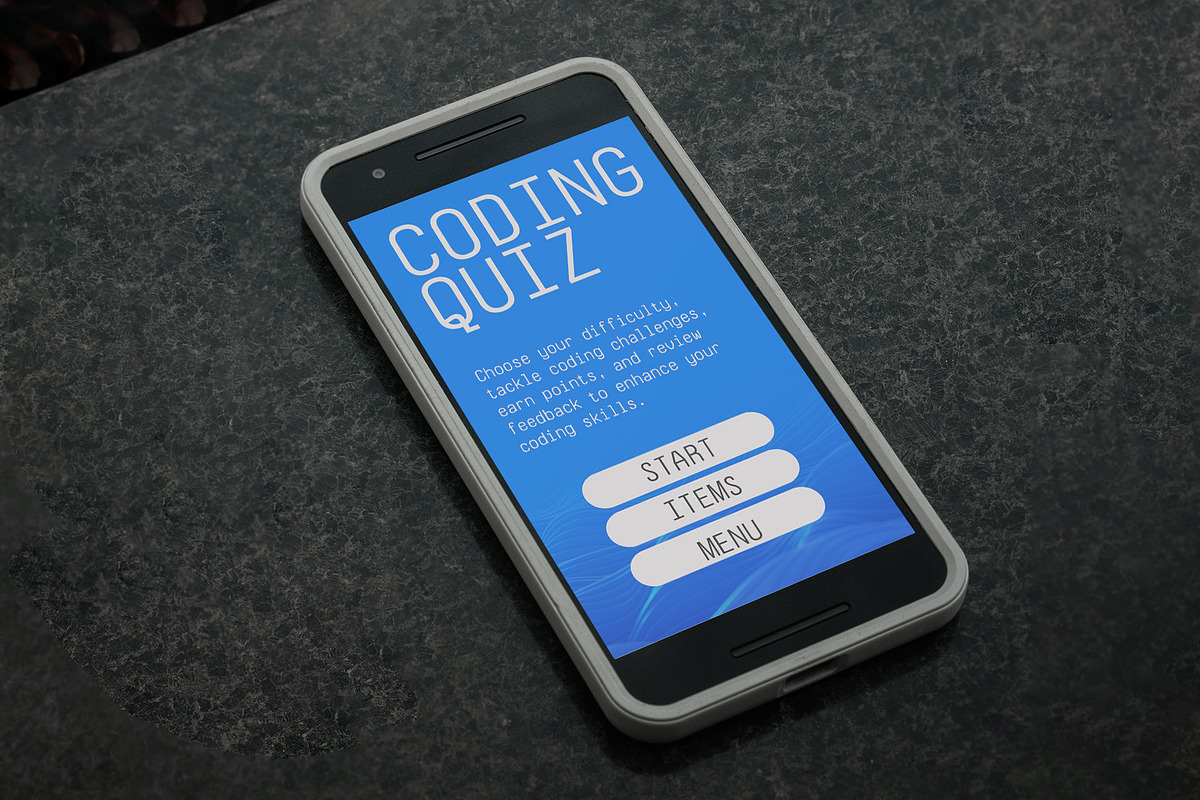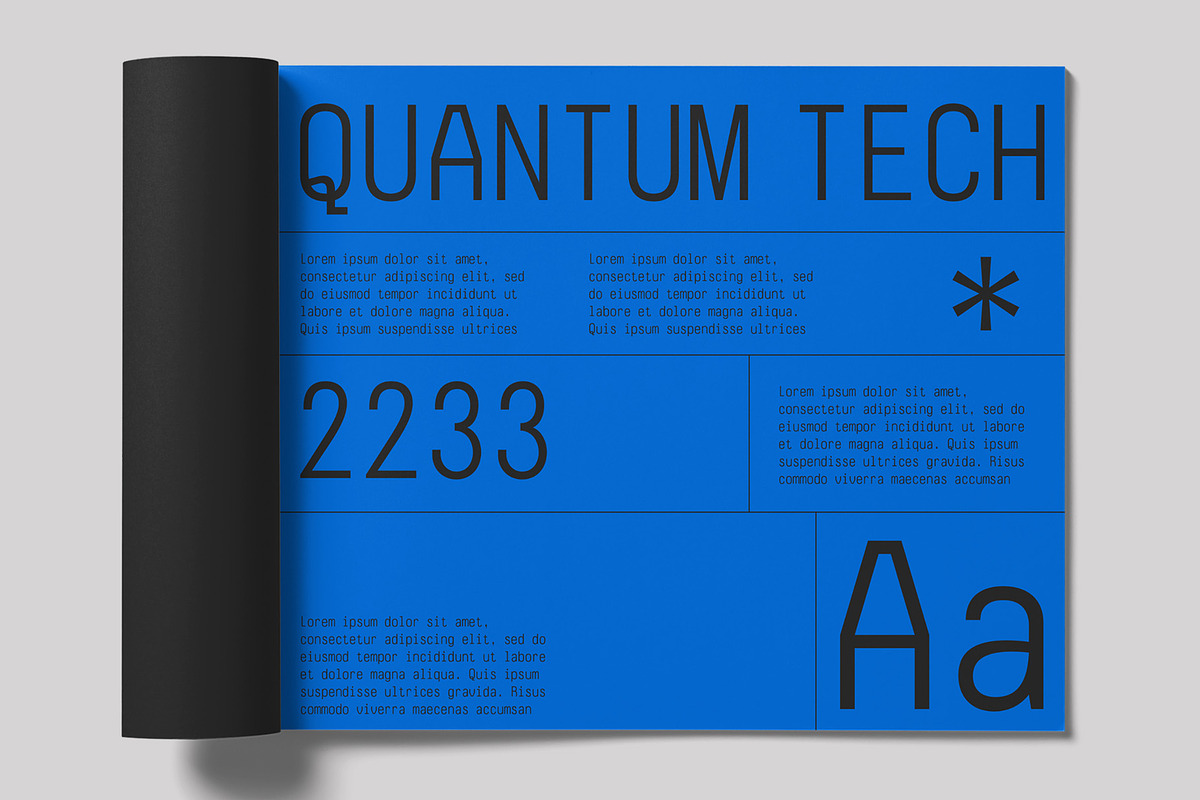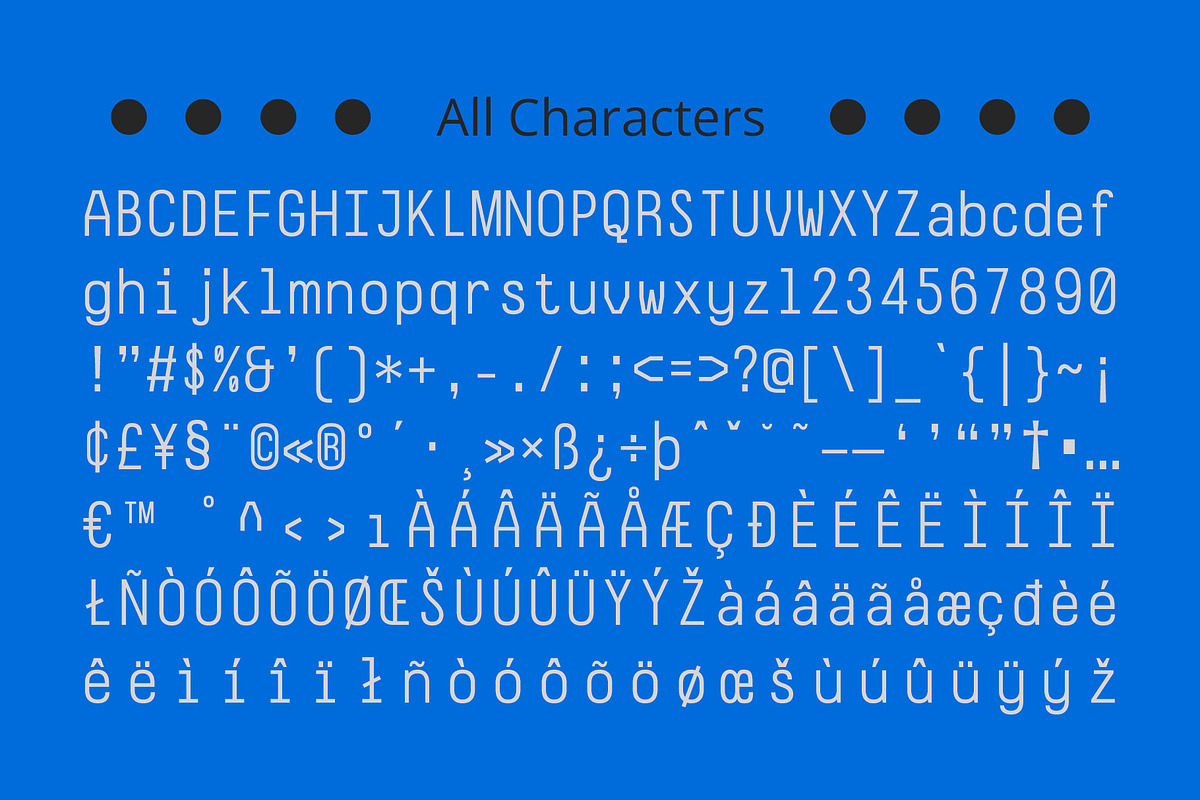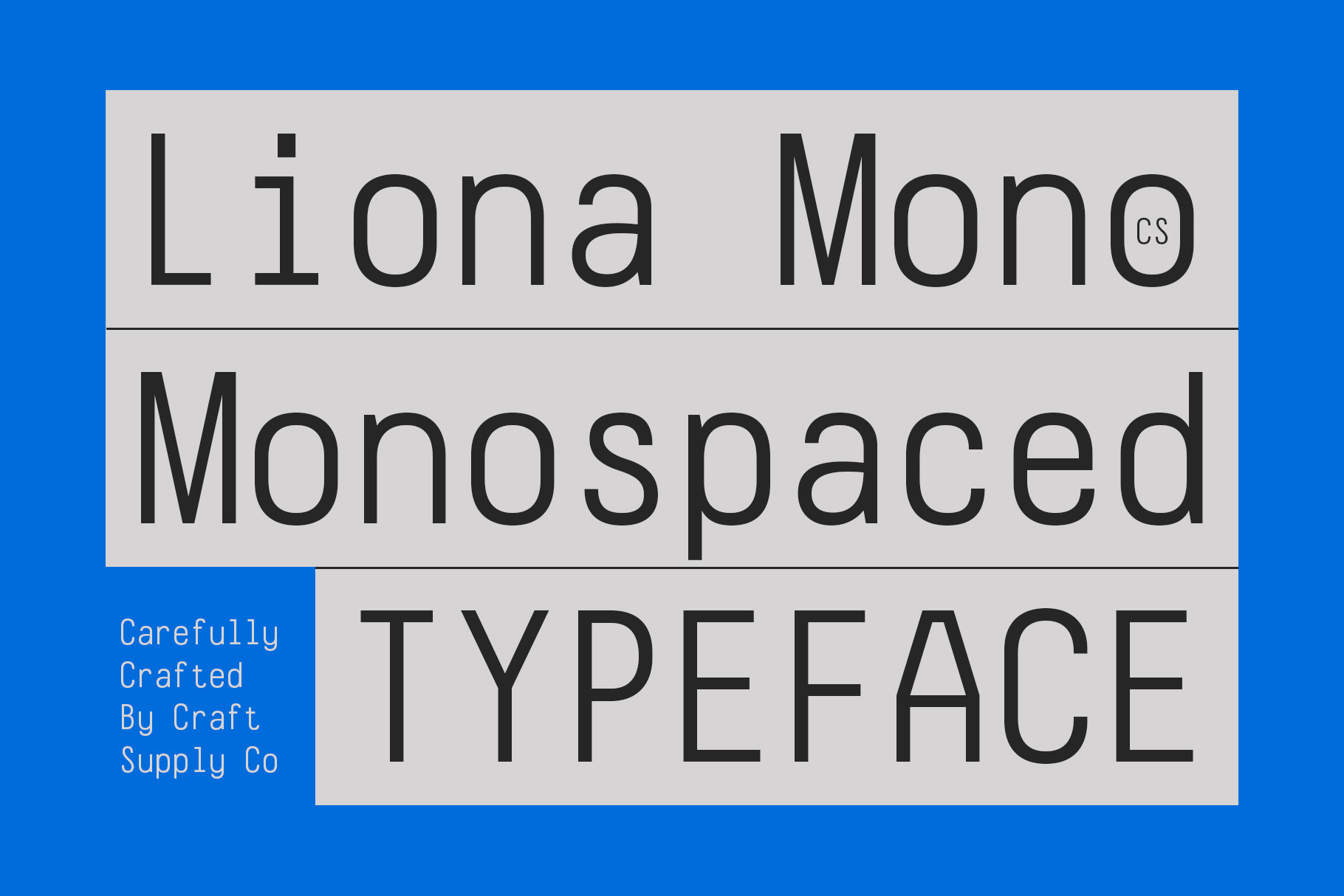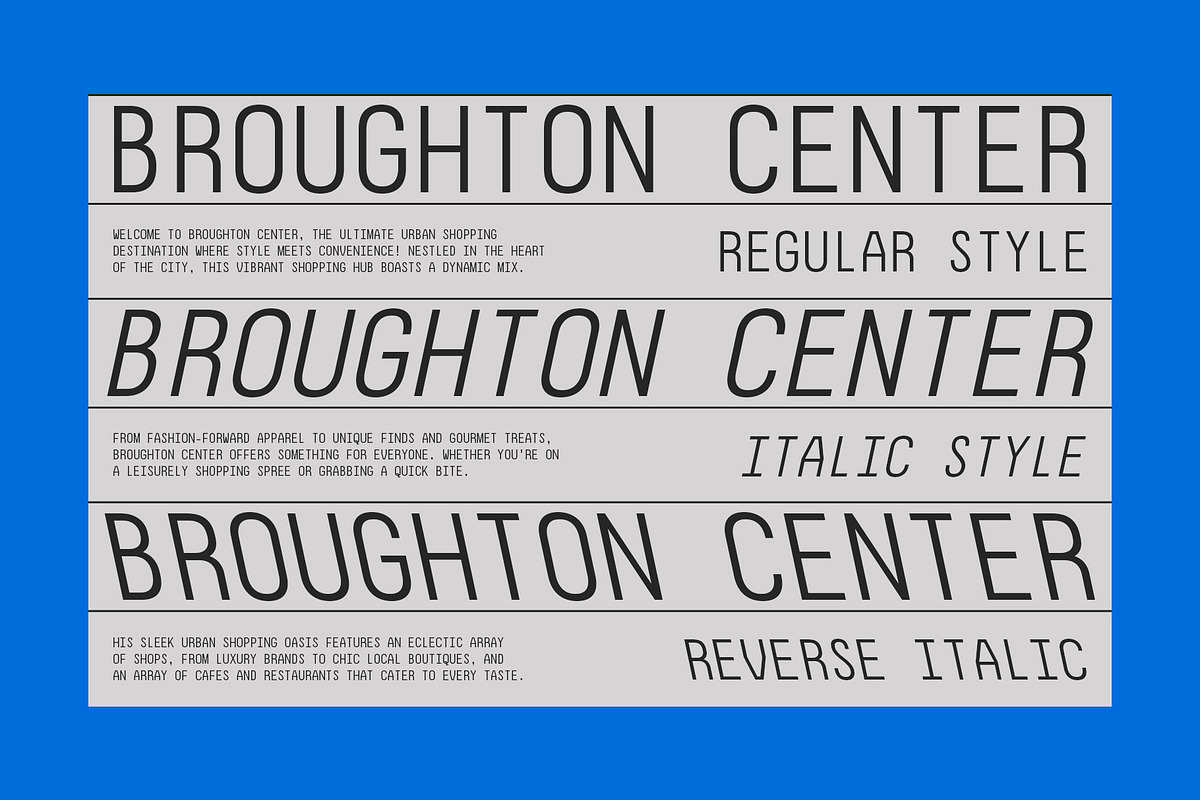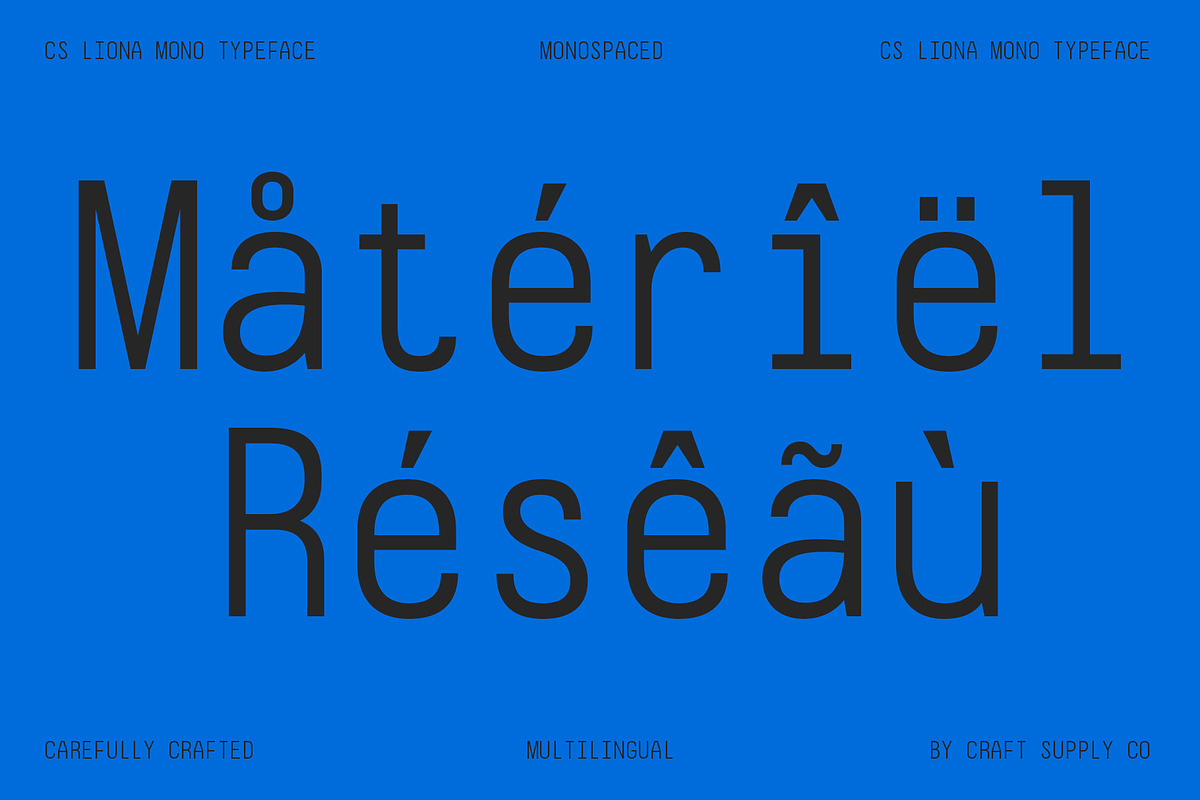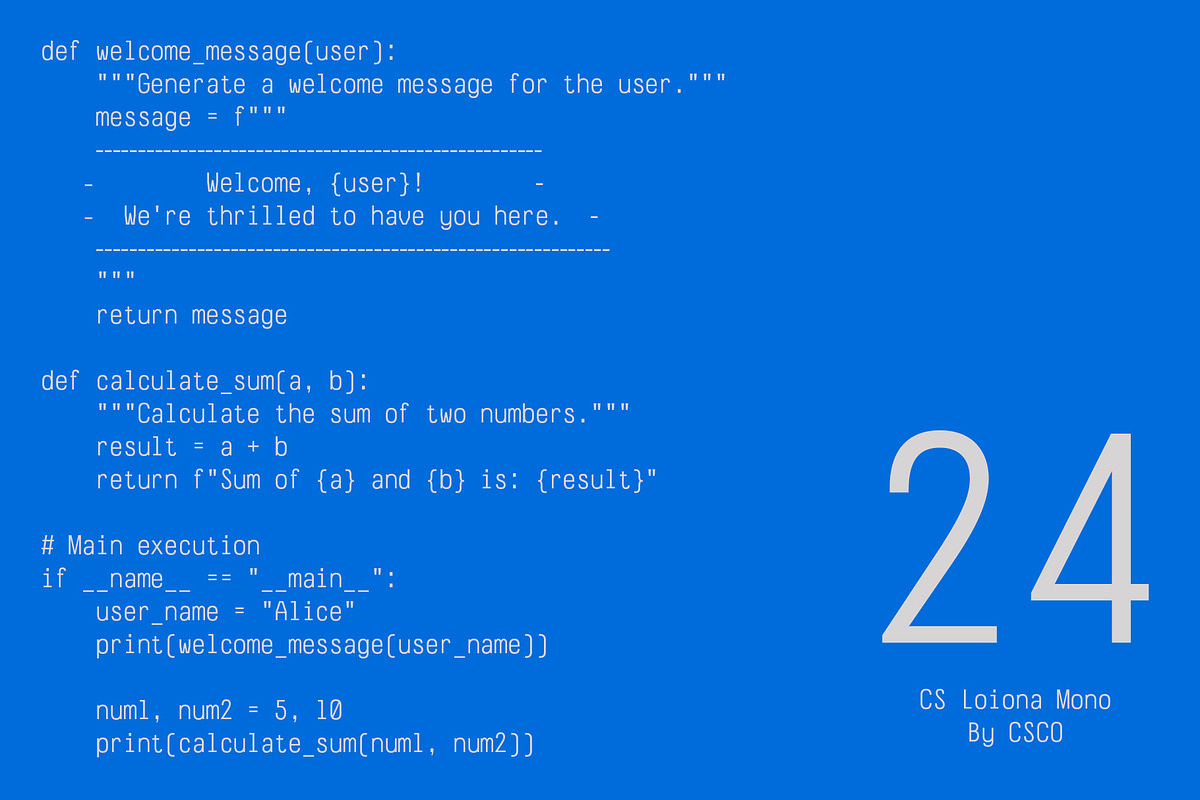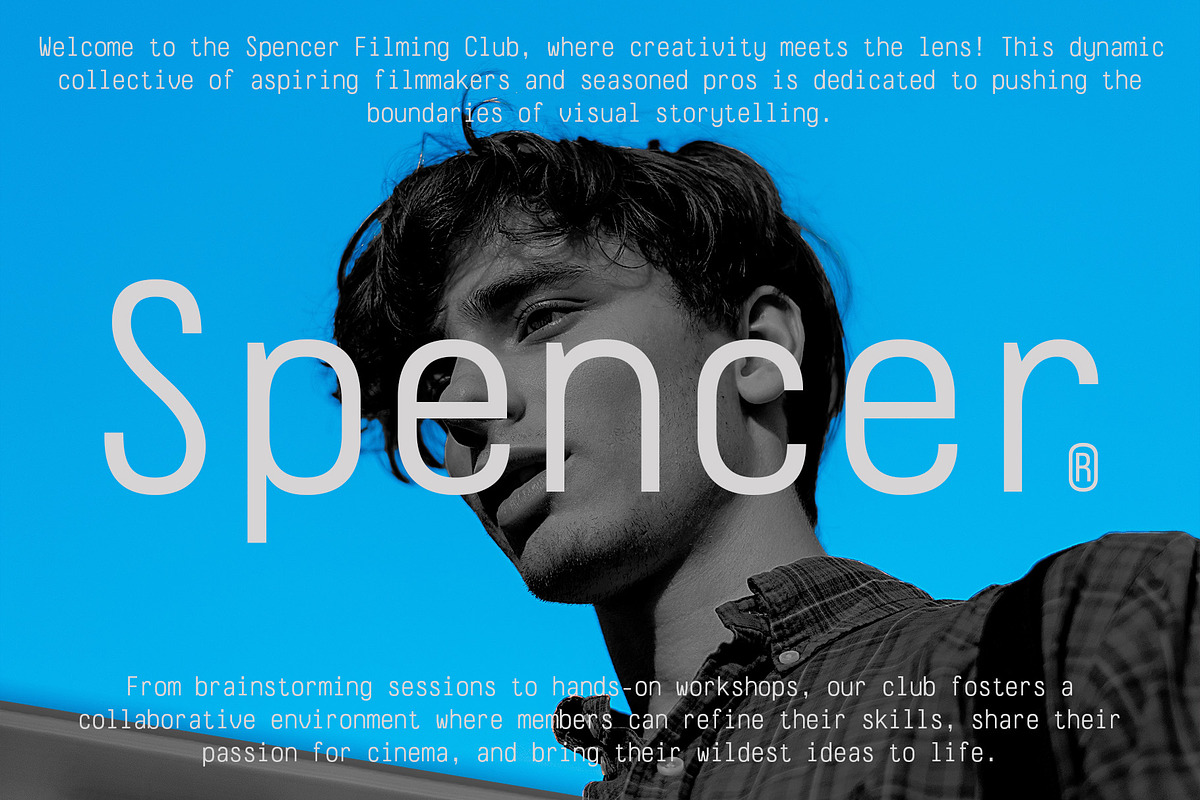
CS Liona Mono – Monospaced Typeface
CS Liona Mono – Monospaced Typeface: Clarity and Precision for Professional Use
Modern Monospaced Sans Serif Font CS Liona Mono is a modern sans serif monospaced typeface designed for professional settings. Its straightforward and minimalist form ensures clarity and legibility, making it ideal for coding and technical documentation.
Perfect for Coding and Technical Documentation CS Liona Mono’s monospaced design provides a technologically advanced impression, enhancing readability while maintaining a sleek and efficient look. Its precise letterforms are perfect for coding, technical documents, and any project that requires clear, consistent spacing.
Enhances Readability with Sleek Design This font’s simplicity and precision make it versatile for various professional applications. Whether you’re creating software documentation, coding interfaces, or technical manuals, this CS sans serif mono adds a touch of sophistication and technological savvy to any project.
Versatile for Various Professional Applications CS Liona Mono’s modern design is perfect for adding a professional touch to a wide range of projects. Its clear and minimalist form ensures your work is easy to read and visually appealing, making it suitable for everything from corporate communications to high-tech branding.
Ideal for Professional and Technological Projects Whether you’re developing software, designing technical documents, or creating high-tech branding materials, this CS sans serif mono is the ideal choice. Its clarity, precision, and modern aesthetic make it perfect for projects that demand a professional and technologically advanced look.
- CS Liona Mono Regular
- CS Liona Mono Italic
- CS Liona Mono Reverse Italic